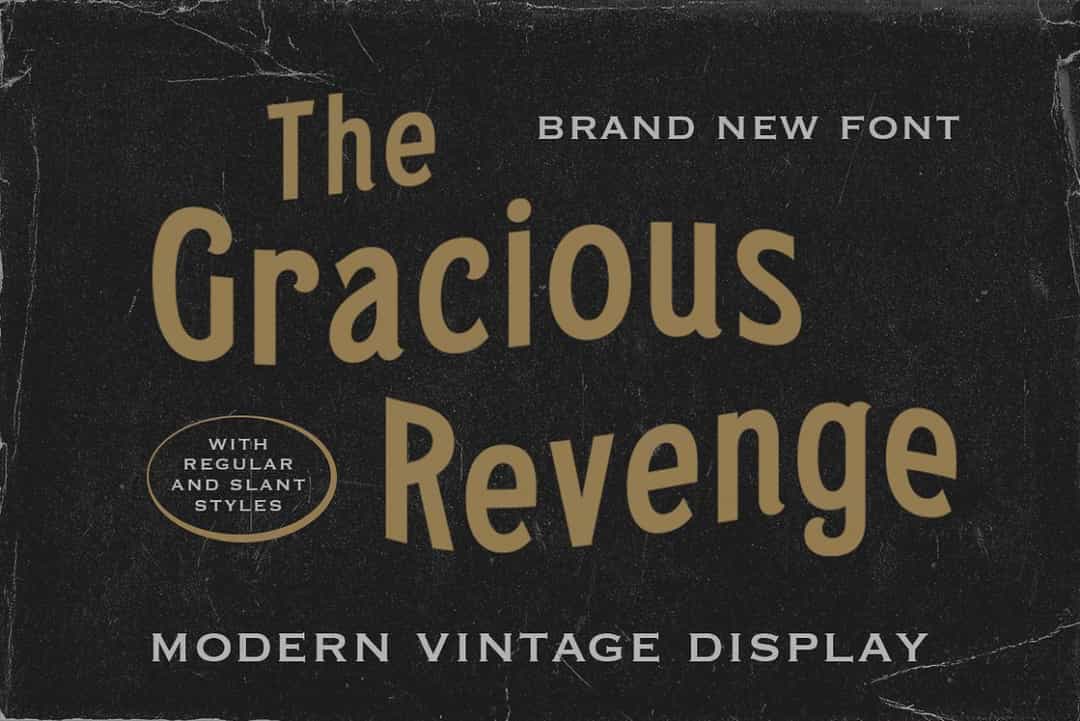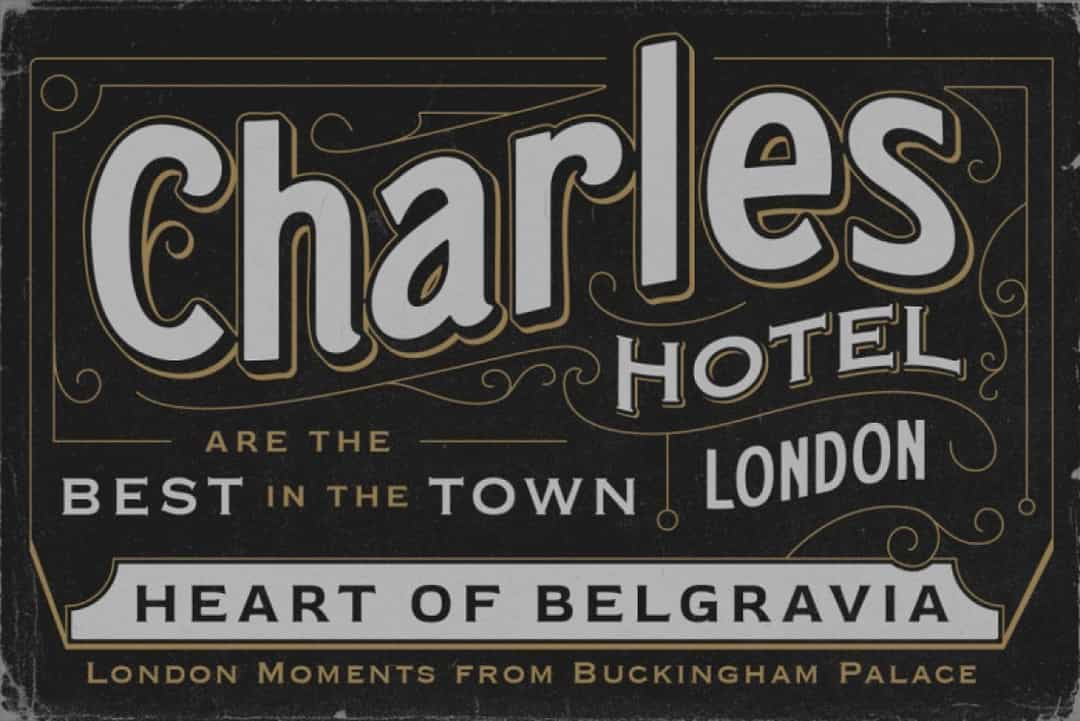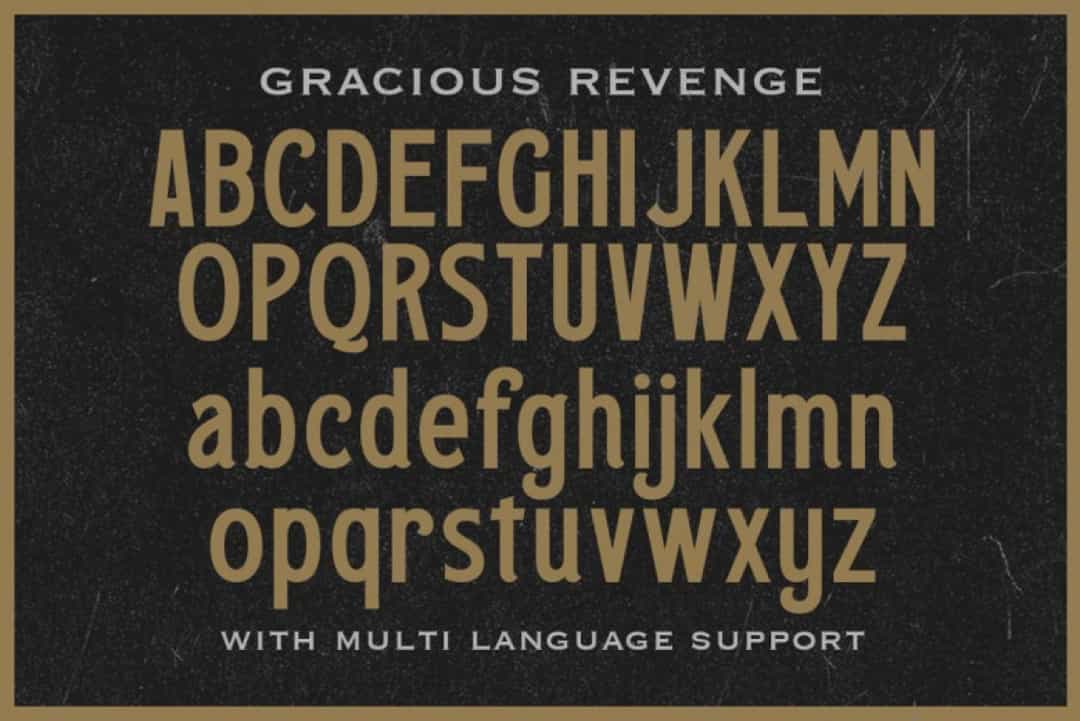
The Gracious Revenge font is a contemporary yet elegant sans serif font designed for use as an e-book sans font. Featuring its distinctive slant style, this font can be used for logos as well as formal designs such as invitations or labels; magazines or books; greeting/wedding cards packaging fashion stationary novels labels or any kind of advertisement purposes.